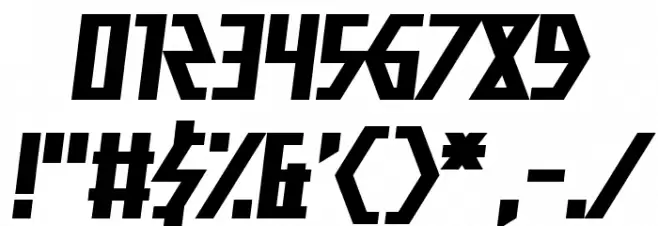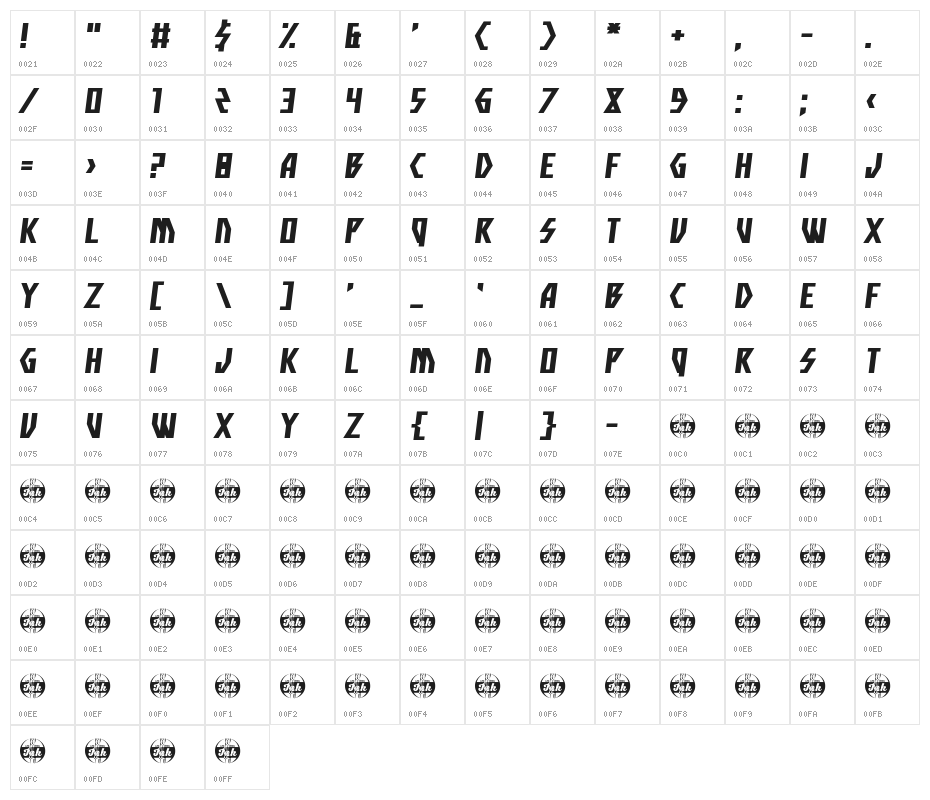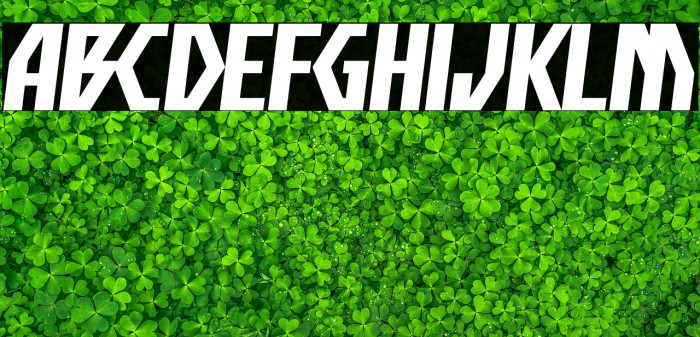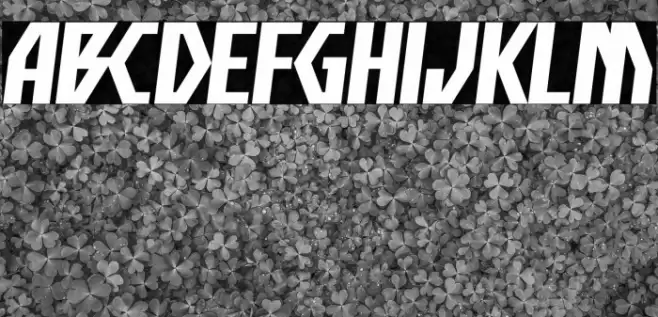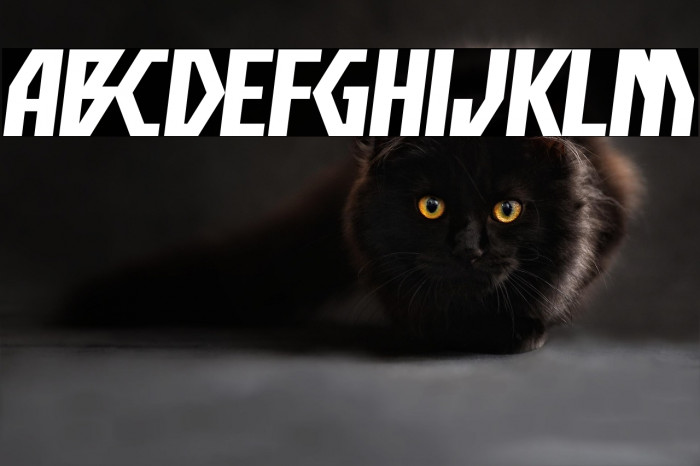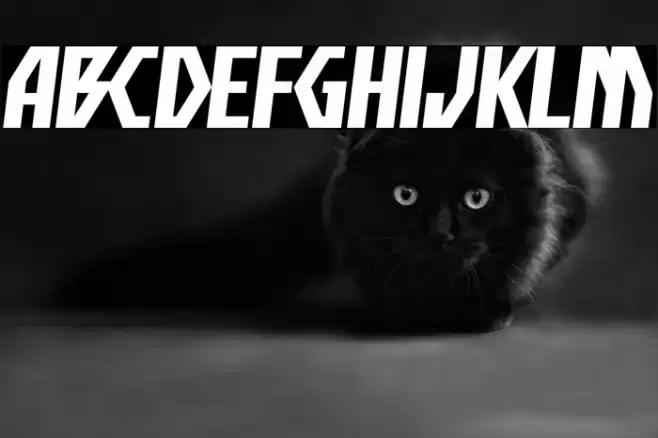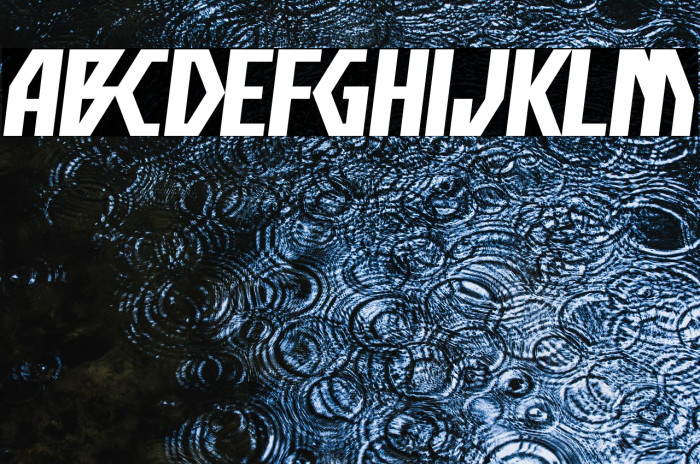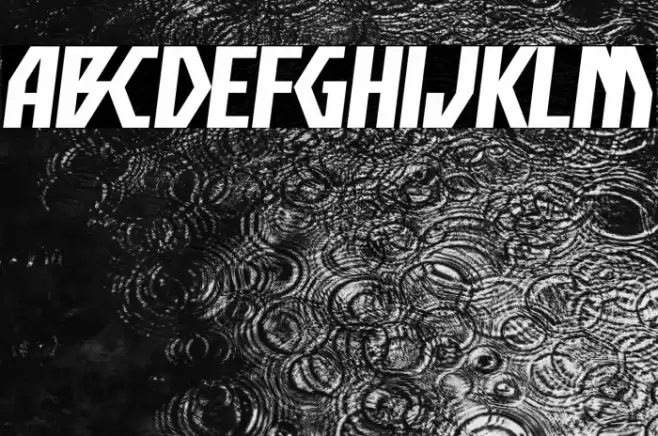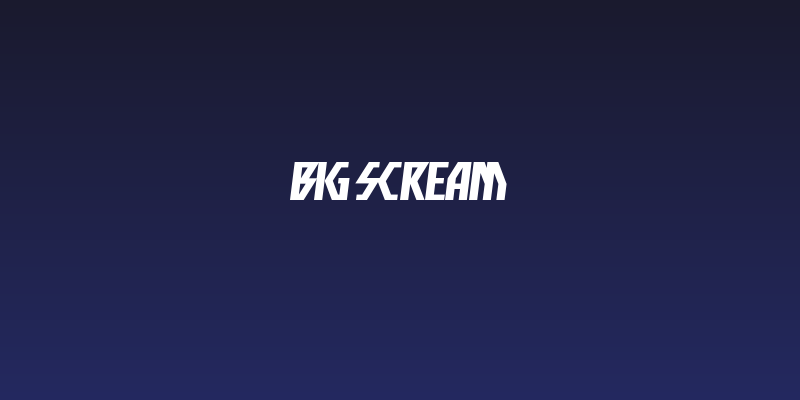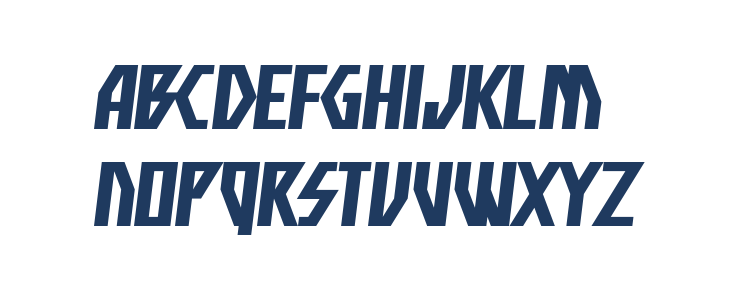
Big Scream Font
Big Scream Description
This font features a bold, angular design with a strong geometric influence. The characters are sharply defined with a distinct slant, giving them a dynamic and energetic appearance. The uppercase letters are particularly striking, with unique cuts and angles that create a sense of movement. The numbers and special characters maintain this bold style, ensuring consistency across all glyphs. This font is highly legible, even at smaller sizes, due to its clear and distinct shapes. The overall aesthetic is modern and edgy, making it suitable for projects that require a strong visual impact.